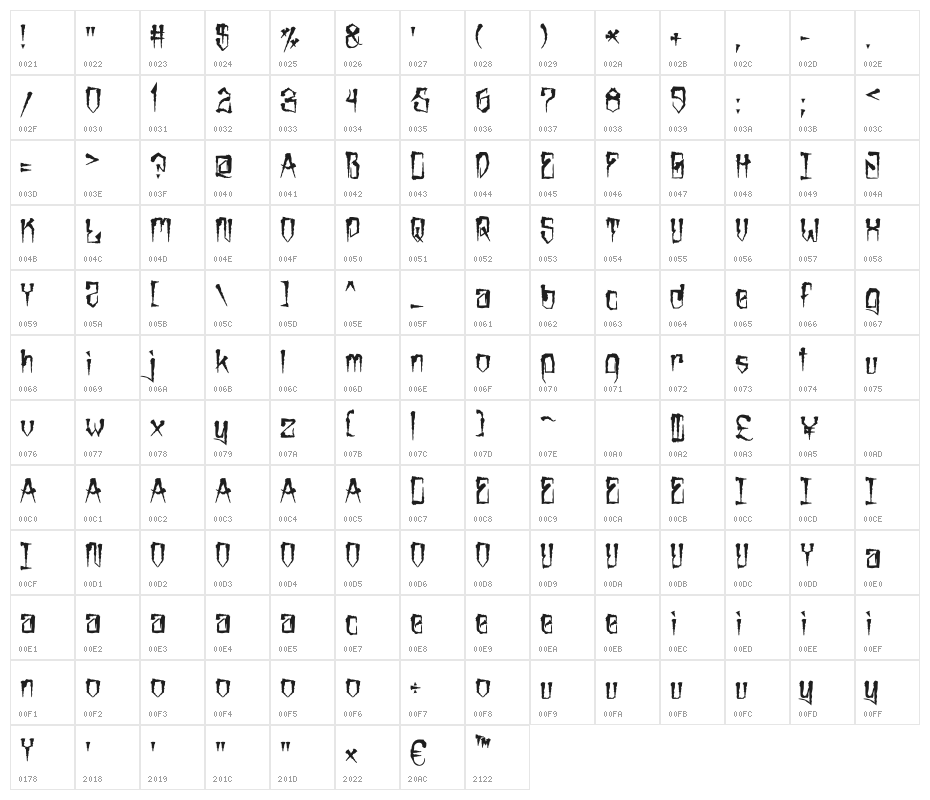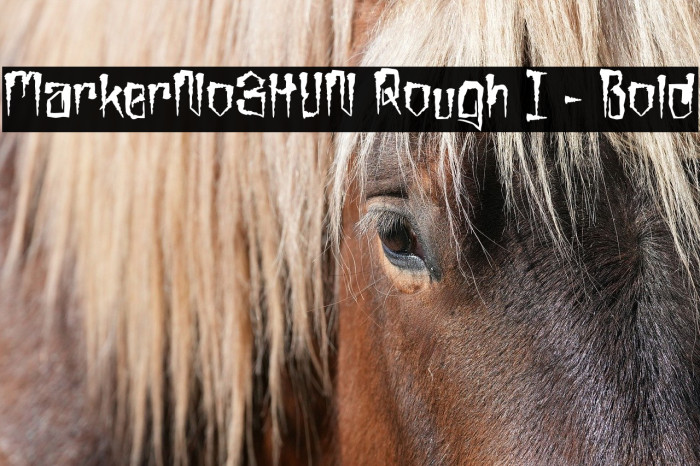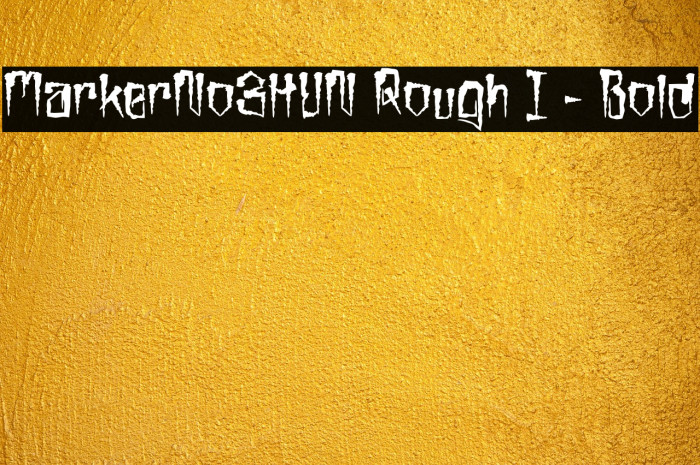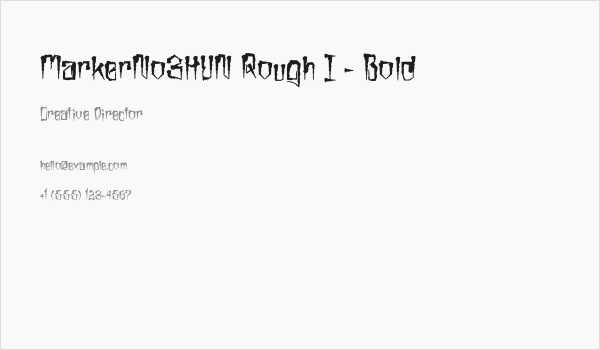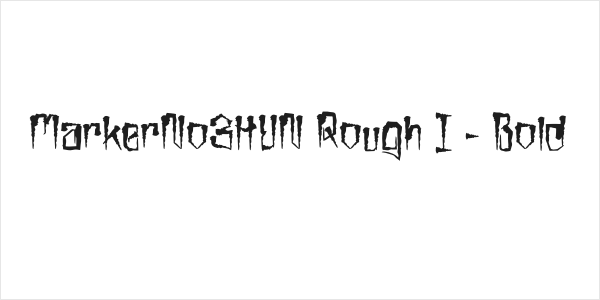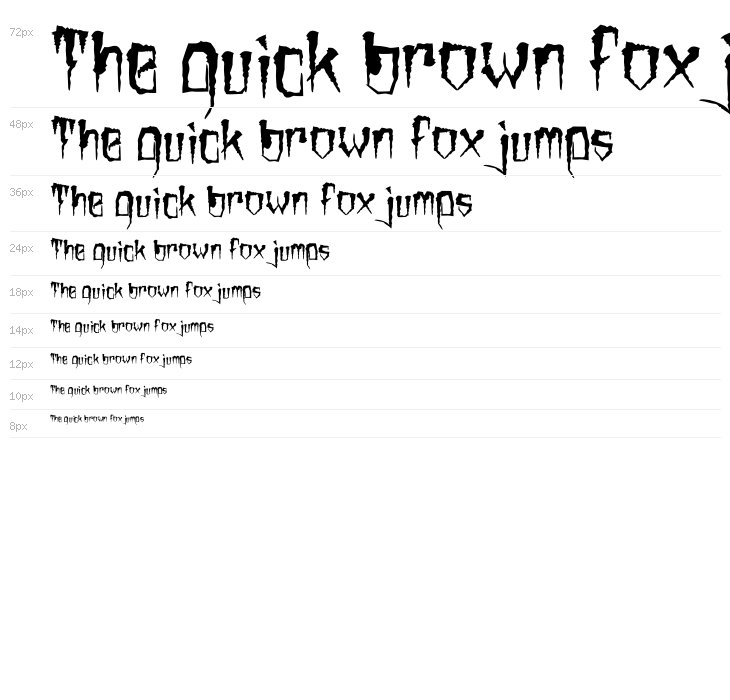
MarkerNo3HUN Rough I - Bold Font
MarkerNo3HUN Rough I - Bold Description
This font exhibits a rugged and distressed style, characterized by its jagged edges and uneven strokes. The uppercase and lowercase letters maintain a consistent rough texture, giving the impression of being hand-drawn with a marker or brush. The numbers and special characters follow the same aesthetic, ensuring a cohesive look across all glyphs. The font's boldness and irregularity make it stand out, creating a sense of urgency and intensity. Its unique appearance is ideal for projects that require a dramatic and eye-catching typeface.
| Proposed Projects | Ideal for horror-themed posters, edgy branding, album covers, and event flyers. |